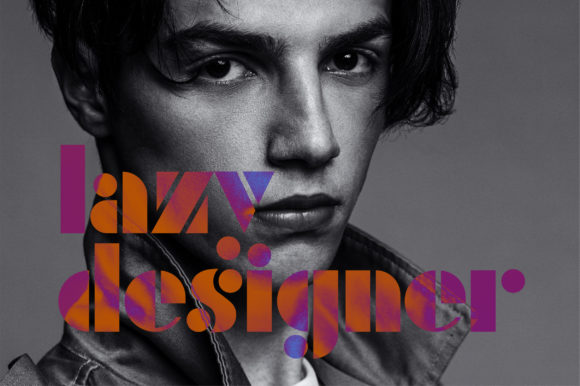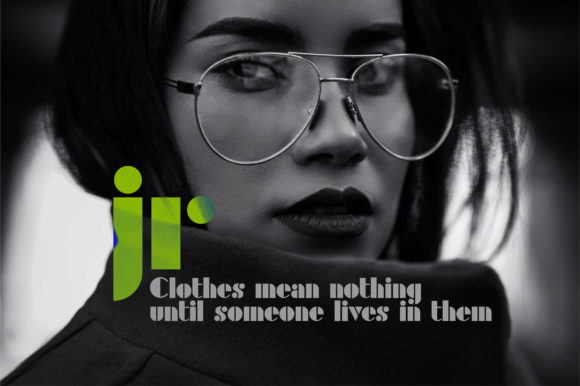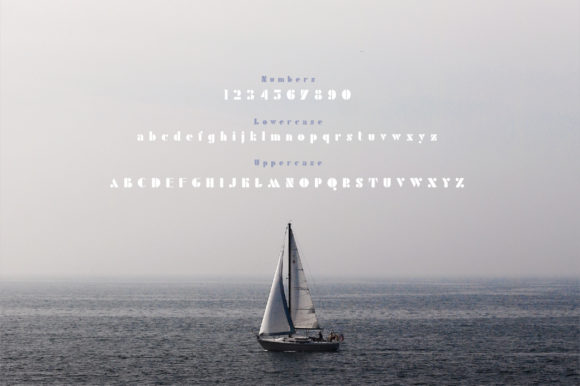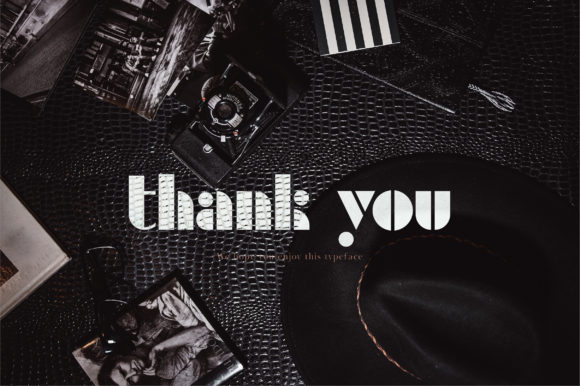
Introduction to Magner Font
You’ve finally landed the dream design project, and you’re bursting with creativity. Your mind is racing with ideas, and you can’t wait to bring them to life. But, as you begin to brainstorm, you realize that the right font can make all the difference. That’s where the Magner Font comes in – a modern and clean display font that’s sure to elevate your design to the next level.
With its versatility and neat vibe, the Magner Font is a valuable resource for designers looking to create high-quality designs. Whether you’re working on a creative project that requires a touch of sophistication or a fun and playful vibe, this font is sure to deliver. Plus, its transparent background makes it easy to layer and combine with other design elements. And the best part? You can download it for free, making it an accessible design resource for designers of all levels.
- High-quality design resource suitable for creative projects, offering a unique and stylish look.
- Features a transparent background, allowing for seamless integration into designs.
- Designed to be highly versatile, with a wide range of applications in various design fields.
- Includes multiple font sizes and resolutions, ensuring optimal readability across different devices.
- Supports a range of languages, making it a valuable resource for global design projects.
Honest Review: Magner Font
I recently had the chance to work with the Magner Font, and I must say it’s been a game-changer for my creative projects. This high-quality font is a valuable resource for any designer looking to elevate their work.
- ✨ High-quality design: The Magner Font is incredibly detailed and sophisticated, making it perfect for professional use.
- ✨ Wide range of uses: From headlines to body text, this font is versatile and adaptable to various design needs.
- ⚠️ Limited font variations: While the font itself is excellent, the number of available variations is somewhat limited.
- ⚠️ Not ideal for transparent backgrounds: Due to its solid design, the Magner Font doesn’t work well with transparent backgrounds.
Overall, I’m extremely impressed with the Magner Font. Its high-quality design and versatility make it an excellent choice for any creative project. While it may have some limitations, I believe it’s well worth considering for any designer looking for a reliable design resource.
Tips for Getting the Most Out of Magner Font
Use Magner Font in combination with a transparent background to create a unique and eye-catching design. Experiment with different font sizes and colors to add depth and visual interest to your design.
Magner Font is a high-quality design resource that can be used in a variety of creative projects, including logos, brochures, and social media graphics. It’s a free download that’s perfect for designers who need a unique and stylish font for their next project.